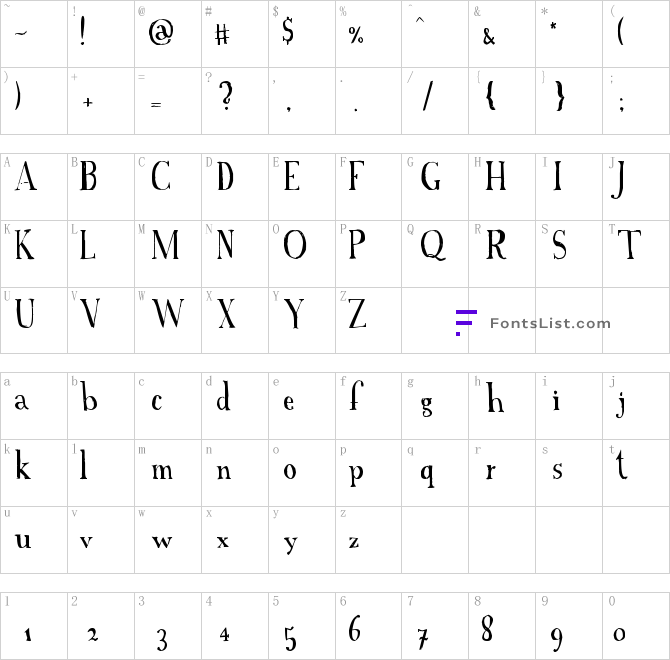
• Font Name:A Font with Serifs
A-Font-with-Serifs.ttf is a very beautiful artistic font, A-Font-with-Serifs.ttf is widely used in the design and printing of various books and pictures,A-Font-with-Serifs.ttf has a strong visual impact,A-Font-with-Serifs.ttf is a commonly used font in newspapers, magazines and books, and is used in posters, e-commerce Poster design, store design, logo design, font design and other fields.A-Font-with-Serifs.